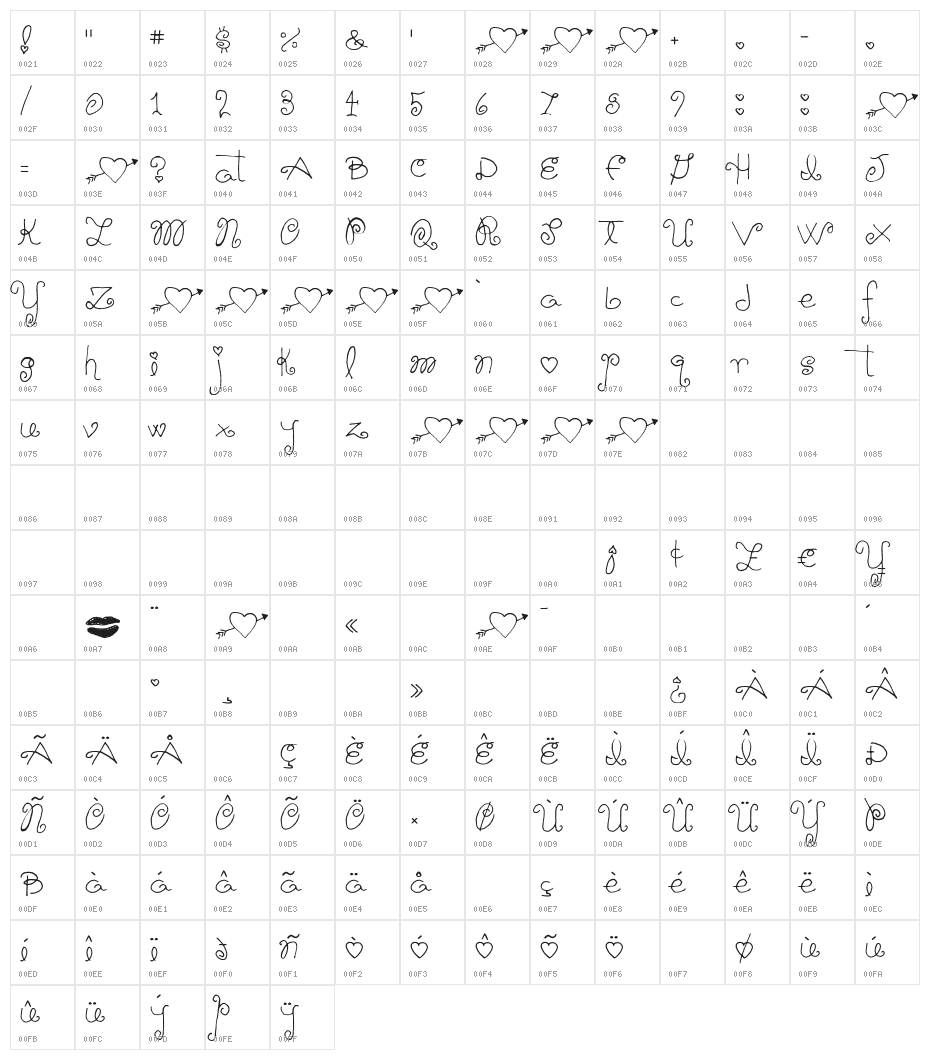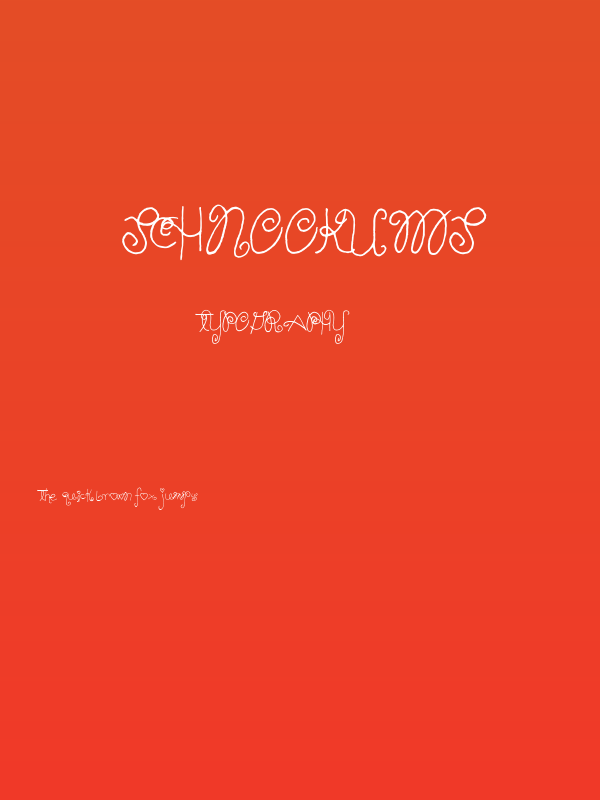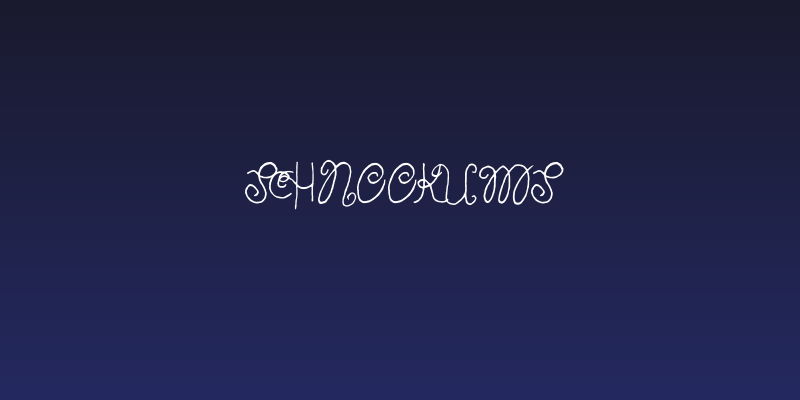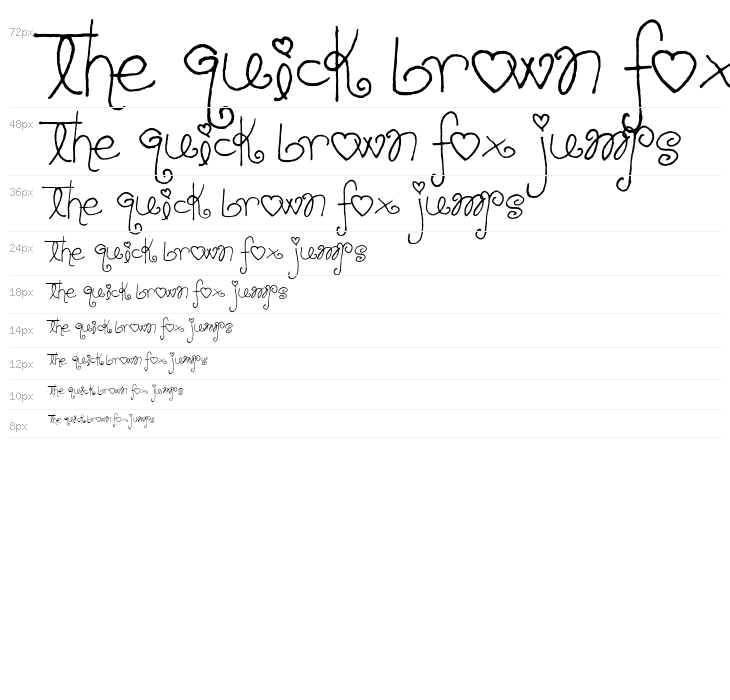
Schnookums Font
Schnookums Description
This font is a whimsical and playful script that features a unique, hand-drawn style. Each character is adorned with decorative swirls and loops, giving it a charming and artistic flair. The uppercase letters are bold and expressive, while the lowercase letters maintain a consistent flow with intricate details. Numbers and special characters are equally stylized, adding to the font's overall cohesive look. The font's design is reminiscent of doodles or handwritten notes, making it ideal for creative projects that require a personal touch.
| Use Case | Logos, Invitations, Creative projects |
| Proposed Projects | Ideal for greeting cards, invitations, children's books, and playful branding. |